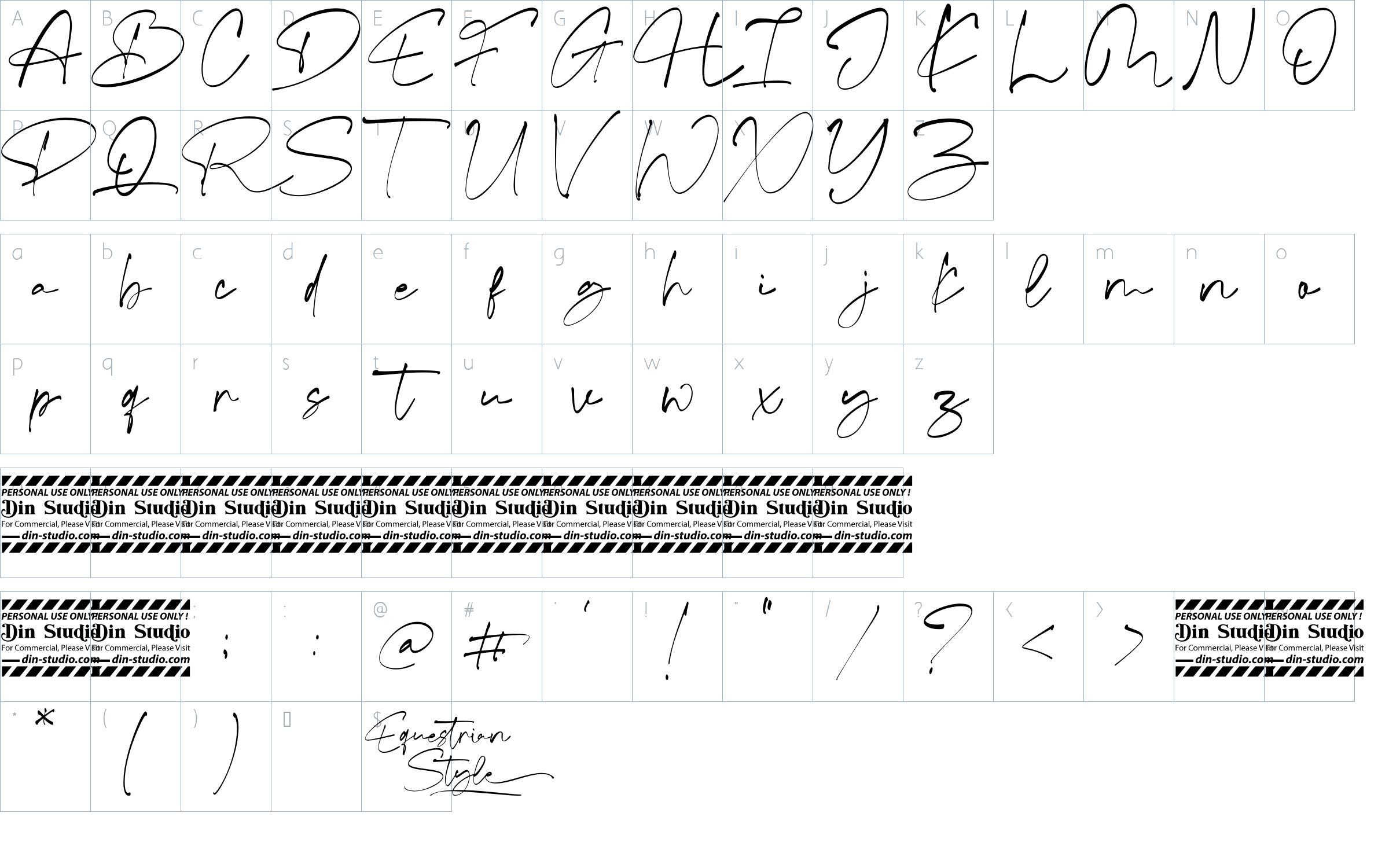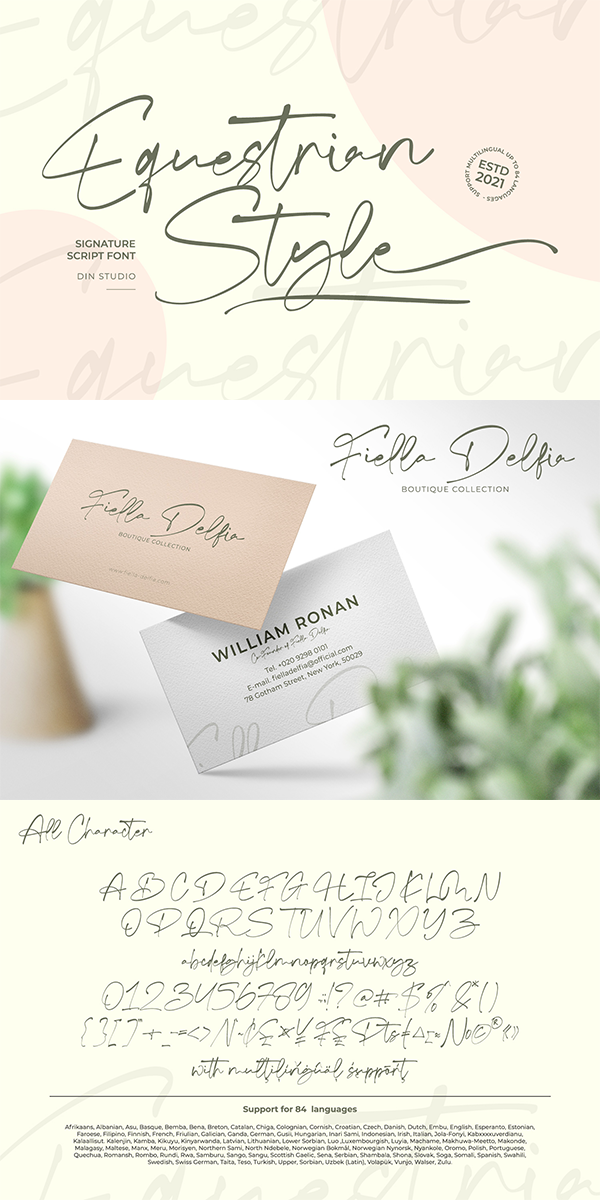
Equestrian Style Font
About Equestrian Style
Equestrian Style – A Signature Font
Equestrian Style is a handcrafted font designed to bring your branding to life and add a touch of elegance, modernity, and style. Every swash, stroke, and curve is created to entice happiness and elegance. This is absolutely the best choice for your logo, book cover, poster, t-shirt, branding, and advertisement needs.